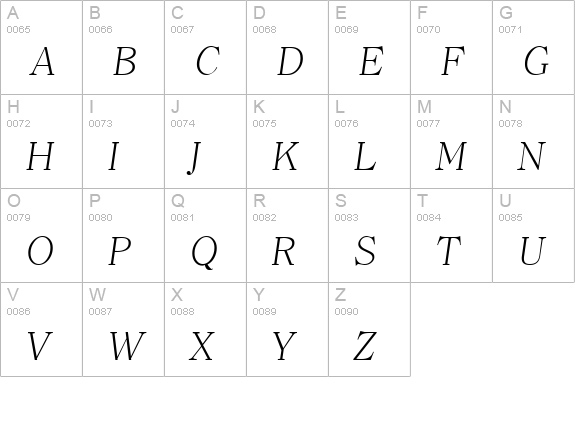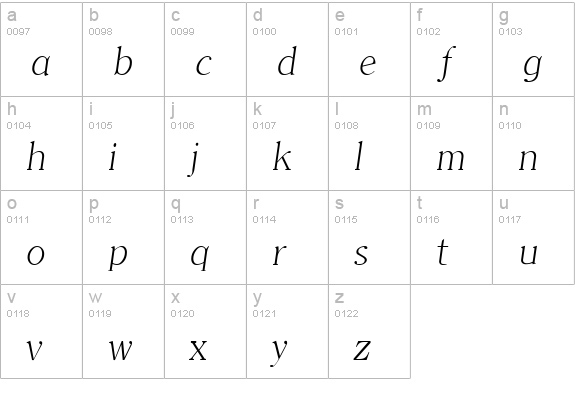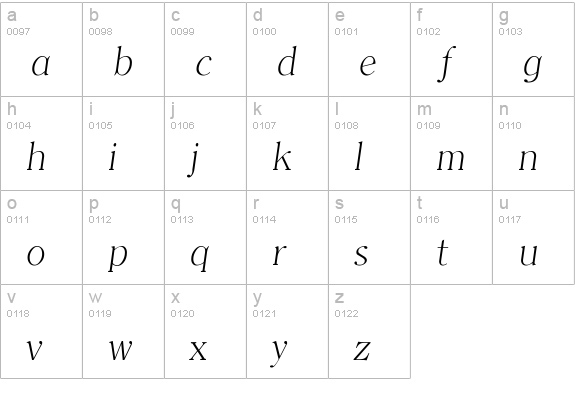
ClearlyRomanLight kursiv Font Details
Introducing ClearlyRomanLight kursiv font, a modern and elegant typeface designed to bring a touch of sophistication to your projects. This font combines classic Roman letterforms with a stylish italic twist, creating a unique and versatile look that is perfect for both professional and creative designs. The ClearlyRomanLight kursiv font features clean lines, subtle curves, and a sleek overall appearance that make it suitable for a wide range of applications, from branding and packaging to editorial design and digital content. Whether you are working on a logo, website, poster, or any other project, this font will add a touch of class and sophistication to your typography. Best of all, ClearlyRomanLight kursiv font is completely free to download at FontsMarket.com. Simply visit the website, grab your copy, and start using this elegant typeface in your designs today. Don't miss out on the opportunity to enhance your work with this beautiful and modern font that will surely elevate your design projects to the next level.